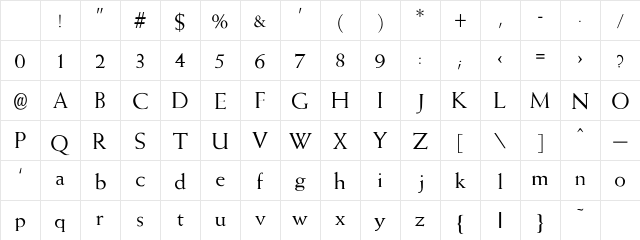
Complete Weiss-Normal Regular glyph index. Displaying only characters natively supported by Weiss-Normal Regular font.
Weiss-Normal is a composed and adaptable typeface that performs quietly and consistently across a wide range of design contexts.